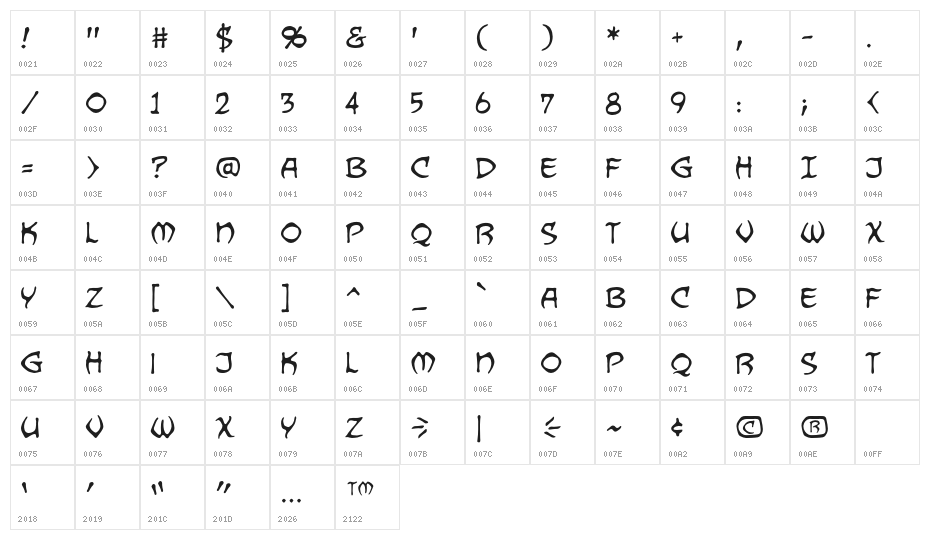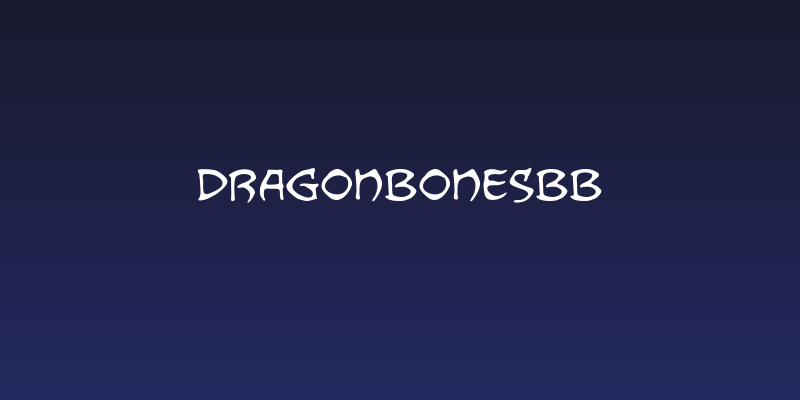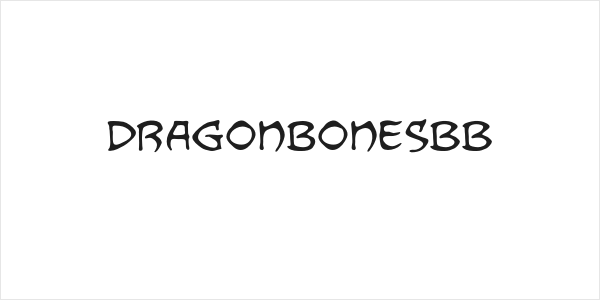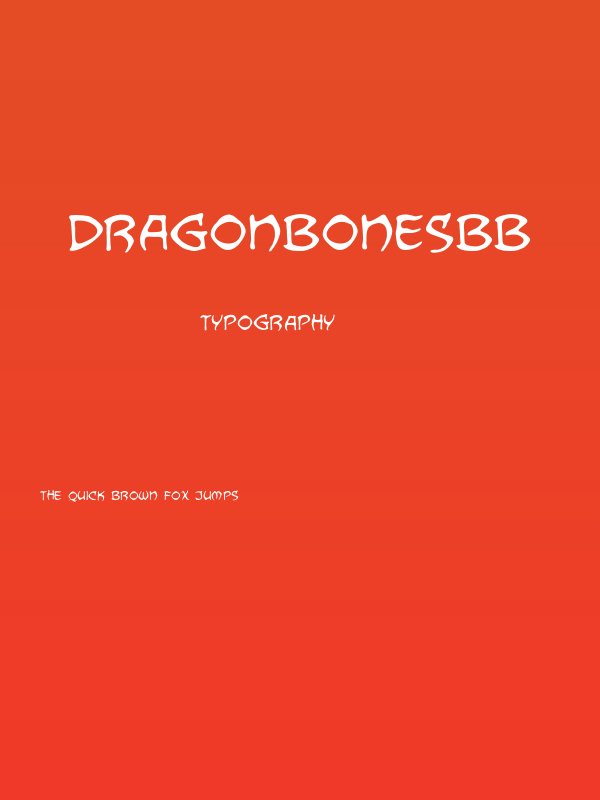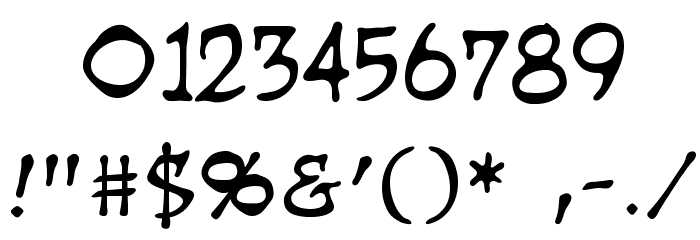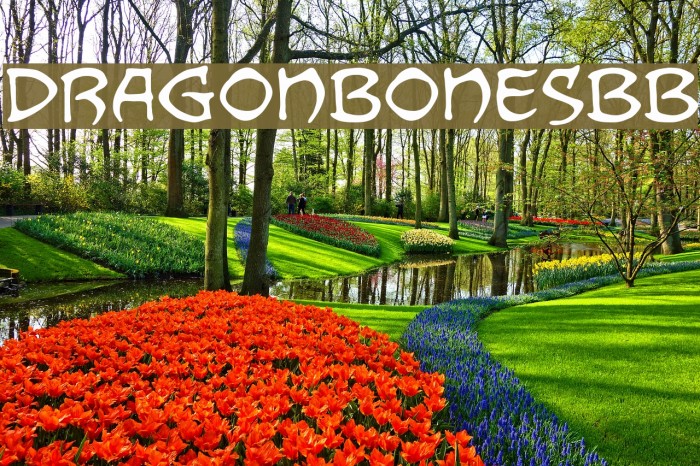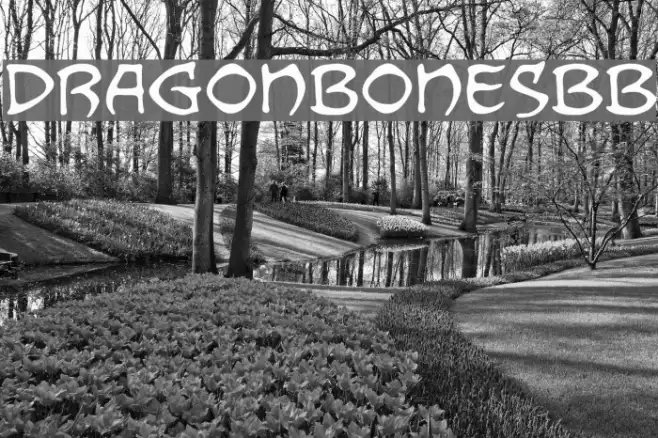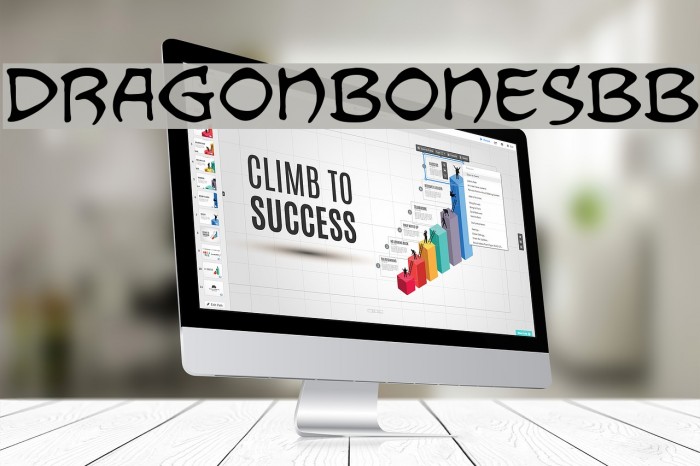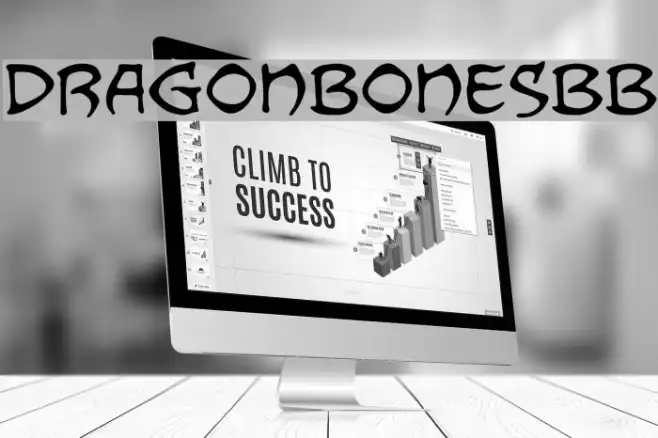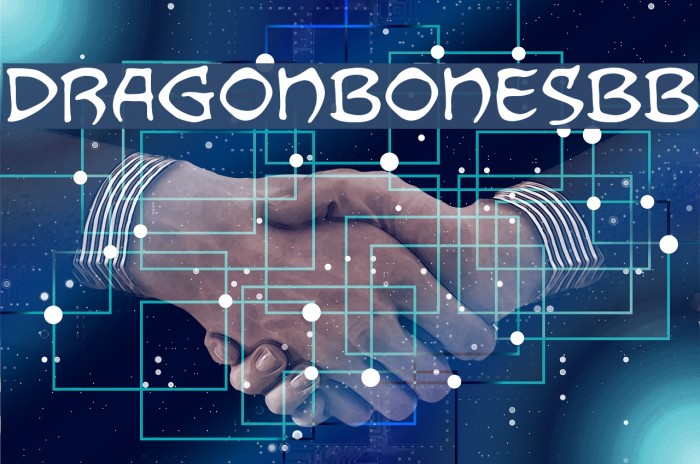
DragonbonesBB Font
DragonbonesBB Description
This font features a unique, decorative style with an organic, hand-drawn appearance. The characters are bold and slightly irregular, giving them a whimsical and playful feel. The uppercase and lowercase letters maintain a consistent style, with rounded edges and varying stroke thicknesses that add to the font's dynamic look. Numbers and special characters are designed to match the overall aesthetic, ensuring a cohesive appearance across all text. The font's distinctiveness makes it ideal for creative projects that require a touch of personality and flair.
| Proposed Projects | Ideal for fantasy-themed designs, children's book covers, creative posters, and unique branding projects. |